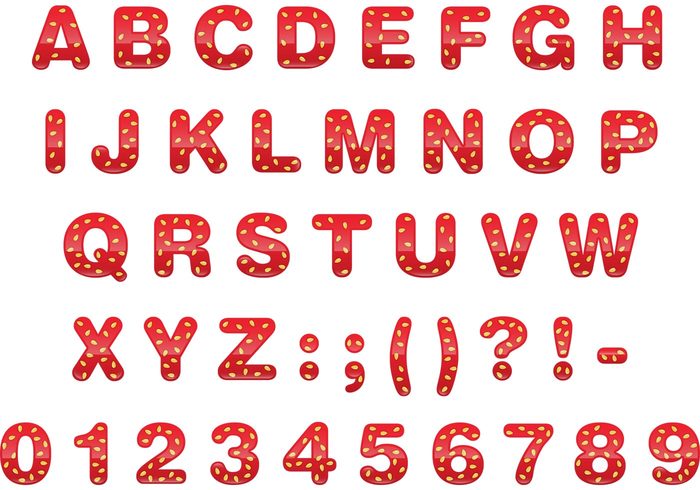
Strawberry Jam Font Vector
Customize the titles in your projects, publications in web, printed supports and designs with this incredible strawberry font vector alphabet. Add a unique touch in your works with this set that includes capital letters, change the colors and edit the characters if you need special letters.